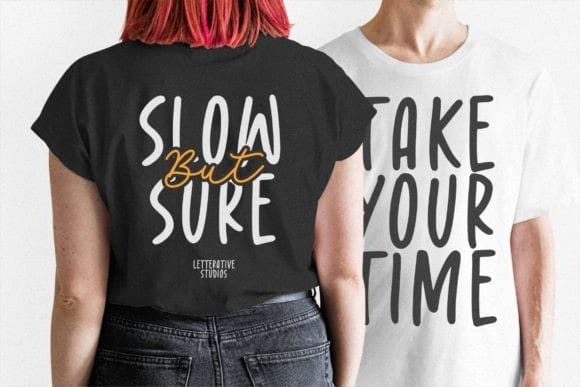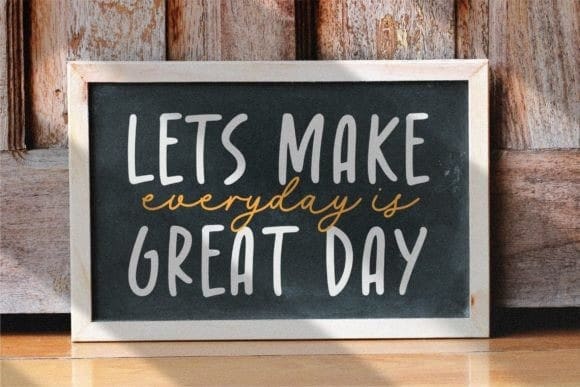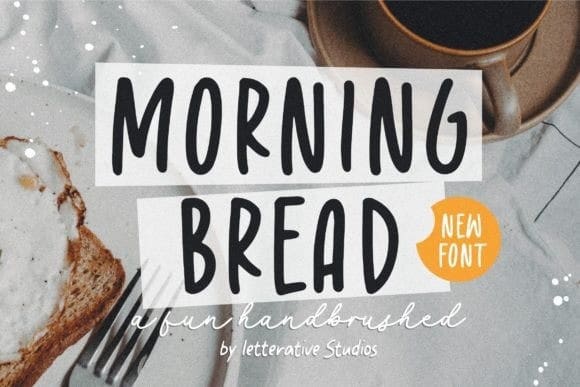
Morning Bread Font
Morning Bread Font is a fun and playful handwritten brush font. Trendy and stylish, this font will elevate each of your creations!